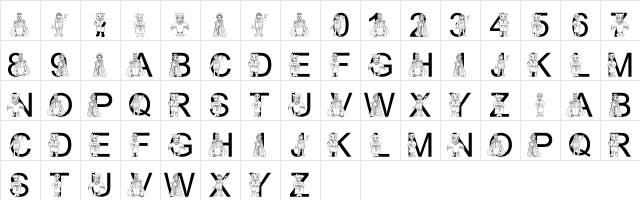
LMS Won't You Be My Neighbor Regular
Design Context for LMS Won't You Be My Neighbor Typeface
LMS Won't You Be My Neighbor is a composed and adaptable typeface that performs quietly and consistently across a wide range of design contexts.